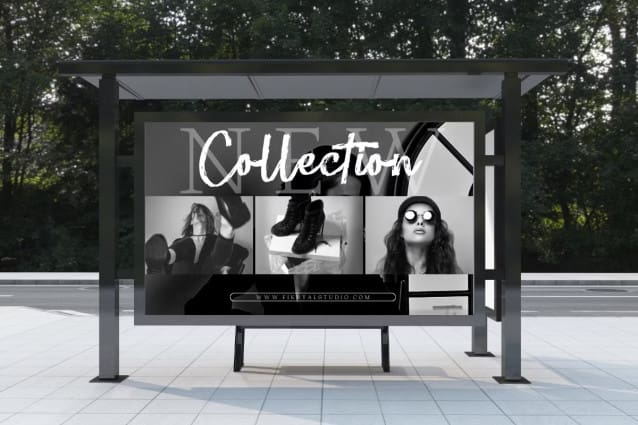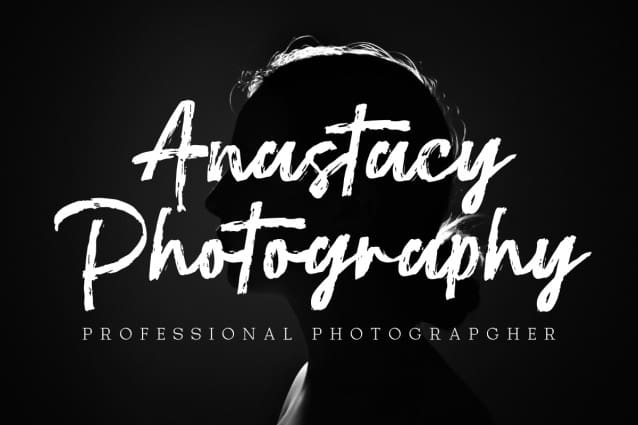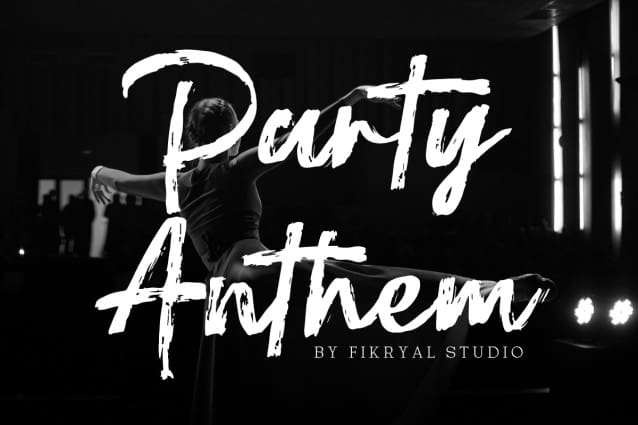
Party Anthem Font
Party Anthem Font, a natural brush script font with an elegant and modern appeal. This font brings a personal, hand-drawn aesthetic that’s perfect for branding projects, logos, invitations, social media designs, and much more.
Why Party Anthem? Its organic strokes and playful sophistication make it versatile for both casual and formal projects. PartyAnthem comes with alternate characters and ligatures, allowing you to craft unique, custom designs effortlessly.